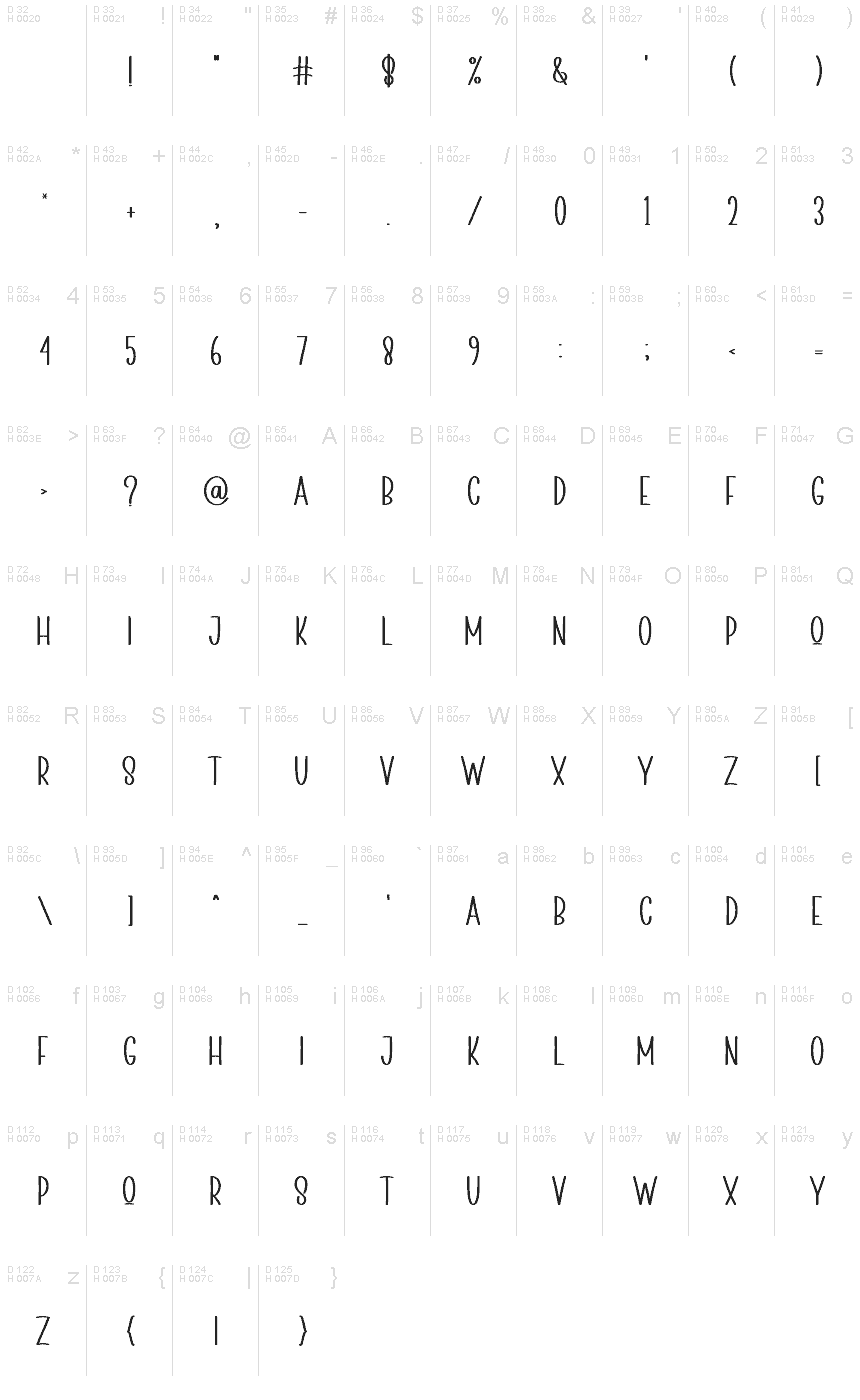
Happy Tshirt
Happy tshirt is a condensed handwritten typeface created by Andi Moz that combines the basic serif and sans serif types to deliver a friendly and playful presentation.
It makes your texts pop, whether you’re adding your logo or slogan for a t-shirt design, creating a fun handwritten tagline, creating a playful title, decorating labels and tags, or using it on packaging and cards.